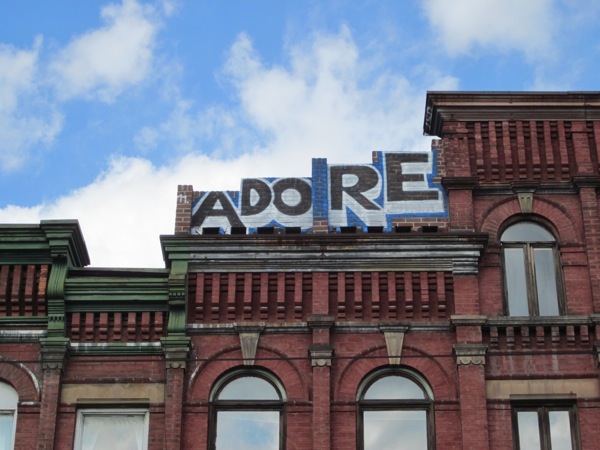
Adore
This word fits neatly into the stair-like shape of the facade. I appreciate the command because it’s so open-ended: Adore what? Adore whom? We’re left to fill in the blank ourselves.
On a spring-like day in Toronto it’s easy to find something to adore. The sensation of a warm breeze on my face. The feeling of the ground beneath my feet.
What are you adoring now?
The ascending letter here also make me think of “Do-Re-Mi.” Soon I’ll be having visions of Maria Von Trapp in Trinity Bellwoods Park.
Reading this entry reminds me of a conversation I overheard from a guy talking to his friend on the subway train, he told her that he decided to write something everyday and what he wrote the night before was that he liked his apartment… I don’t even remember his face, but his happy smile and the way he said it probably will stay in my memory for quite a while…
This sign gave me a feeling like a tattoo, a sign that you want to show your strong love emotion. I also like the 3D effect
At this moment, I am adoring the ‘Empty Sky’ by deuter
Thanks for your reply. Those fragments of conversation we hear while walking around the city can really have an effect sometimes.
A tattoo, yes… I can see why you would say that. And I’m sure there’s a lot of cross pollination between the worlds of street art and tattoos.
I will check out that album you mentioned. Today I have been adoring afternoon sunshine.